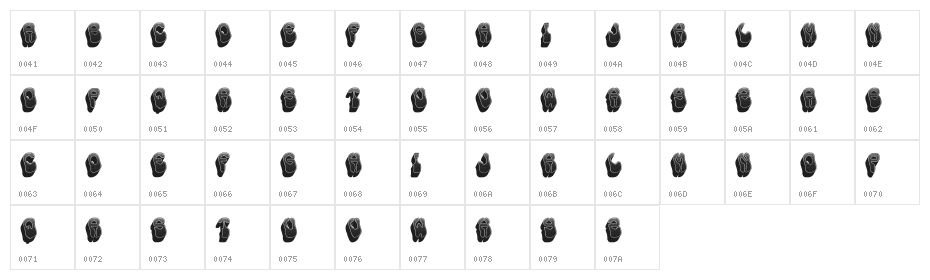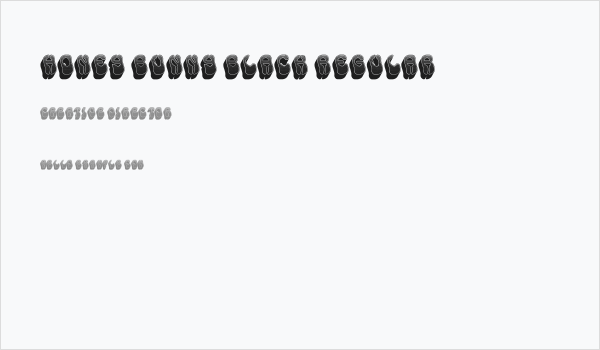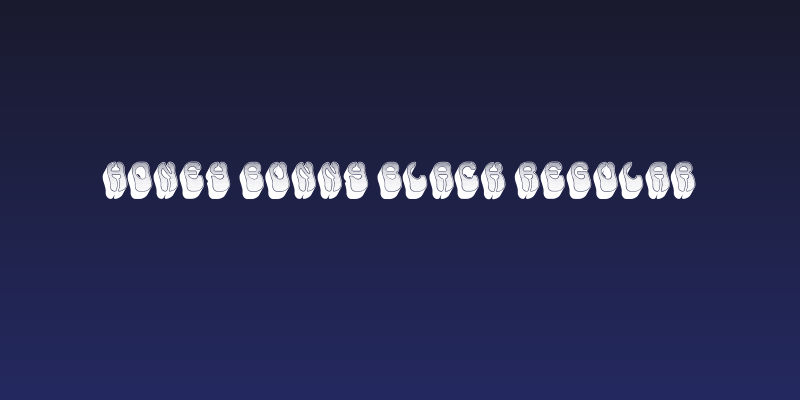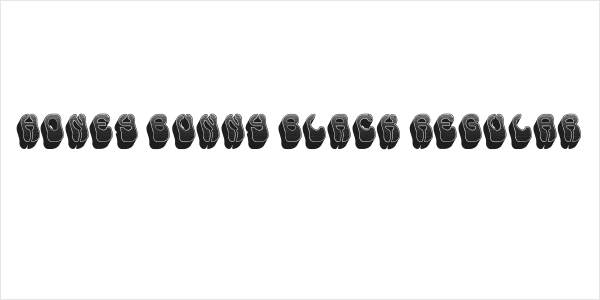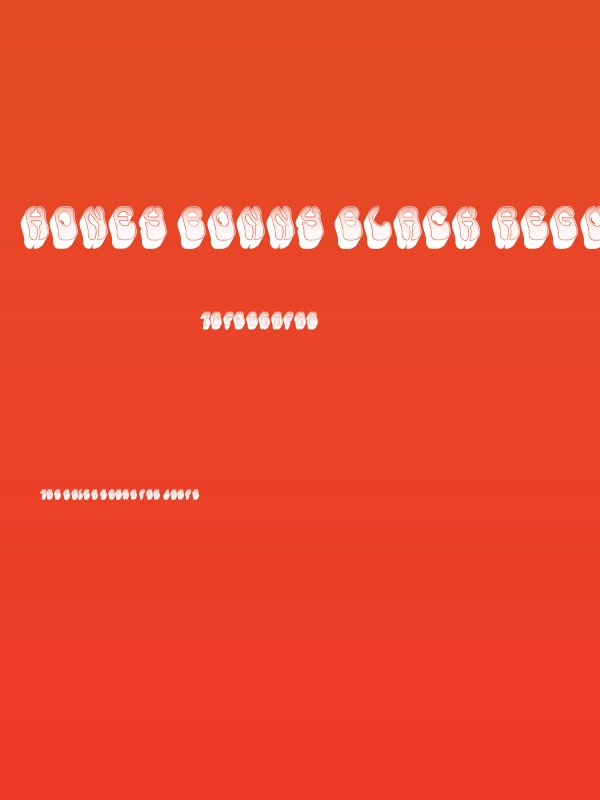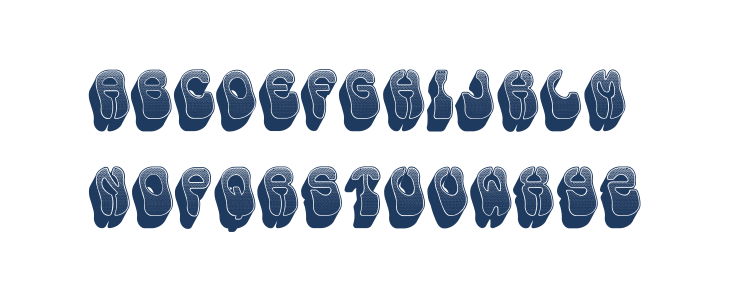
Honey Bunny Black Regular Font
Honey Bunny Black Regular Description
This font features a playful and bold design with a three-dimensional effect. Each character appears to be inflated, giving a bubbly and dynamic appearance. The letters have a thick outline with a shadow effect that enhances the 3D look. The style is consistent across uppercase, lowercase, and numbers, maintaining a whimsical and fun aesthetic. The special characters also follow this design, ensuring uniformity. This font is perfect for projects that require a lively and eye-catching typeface.